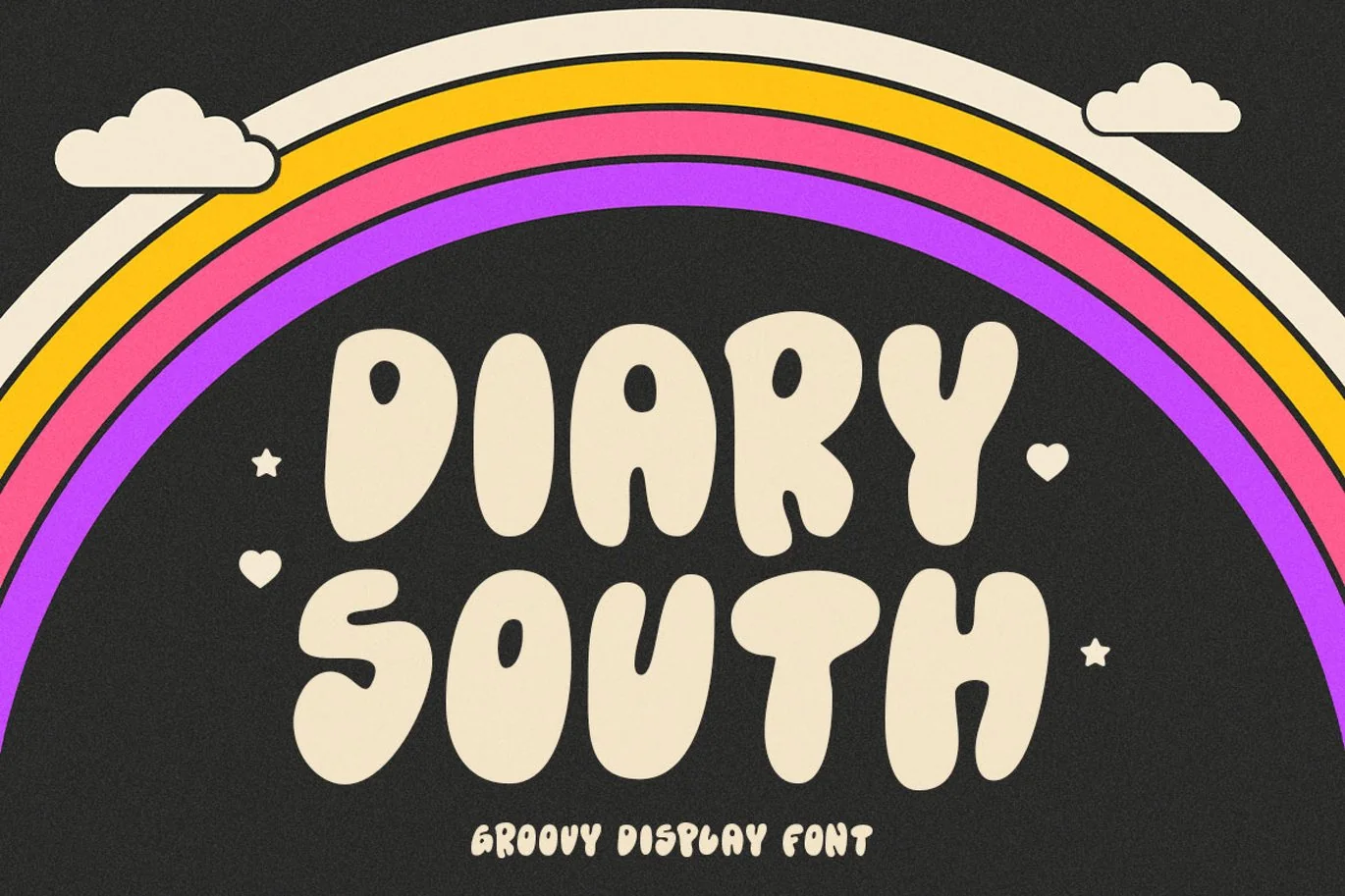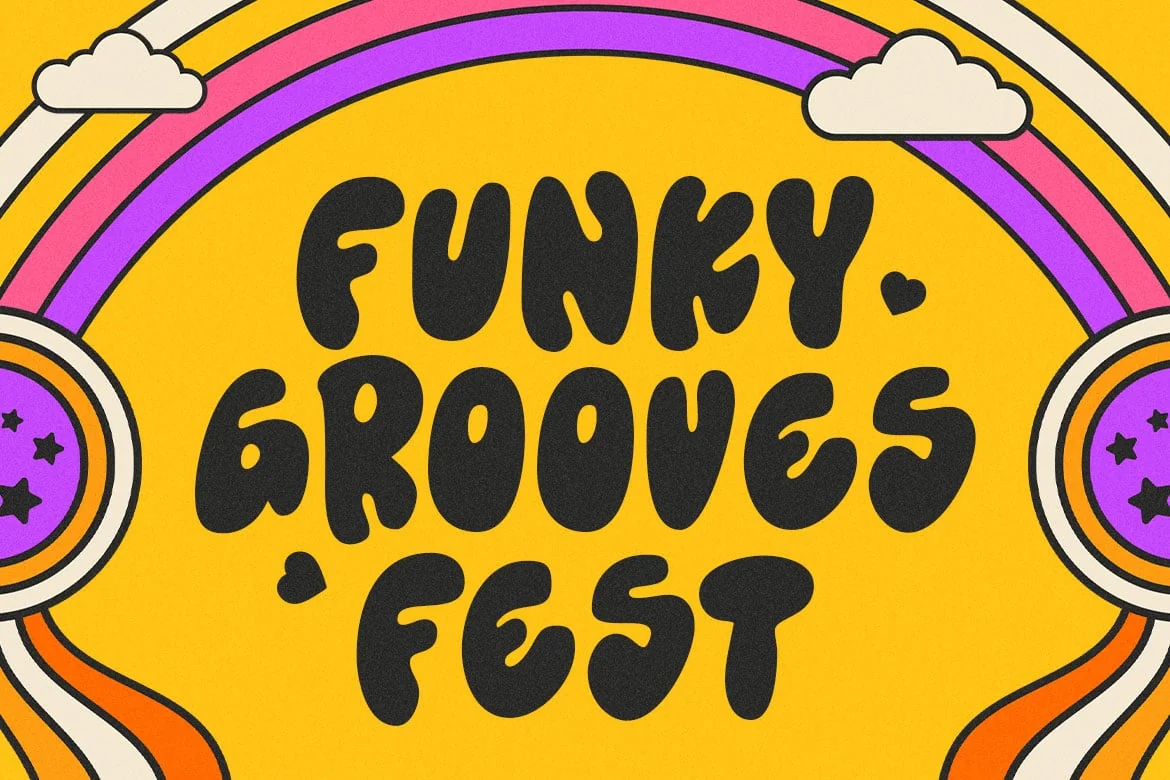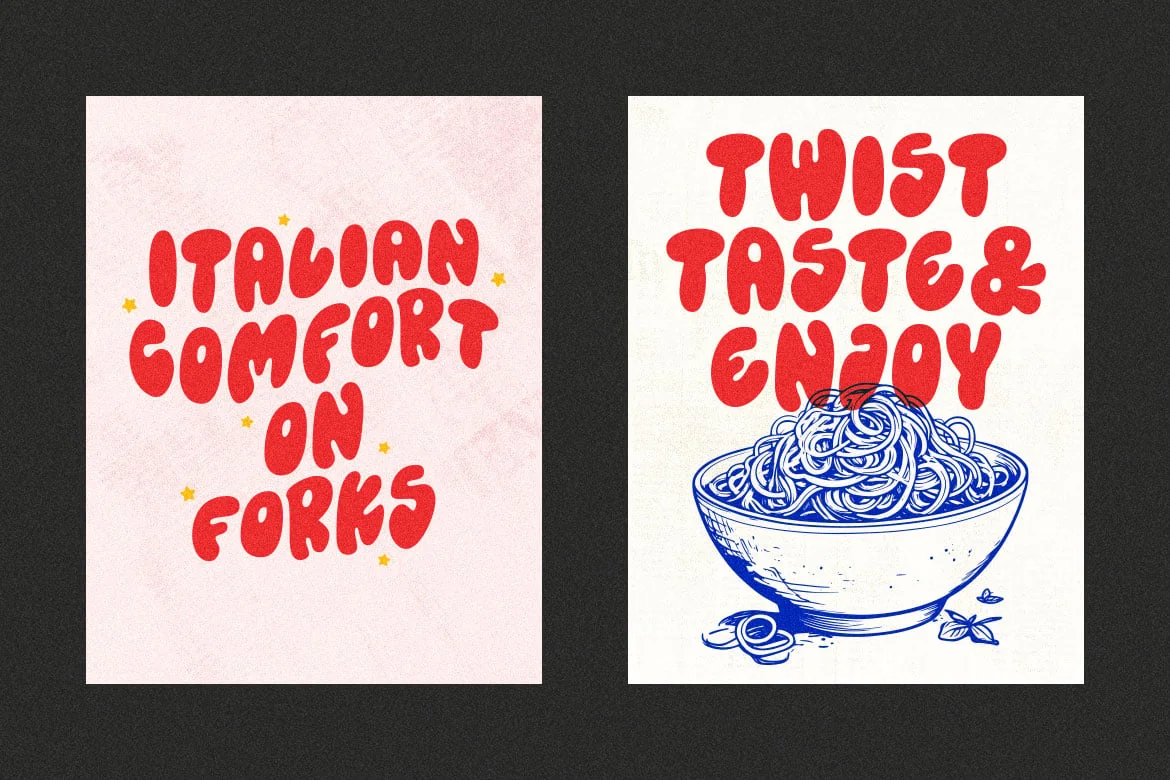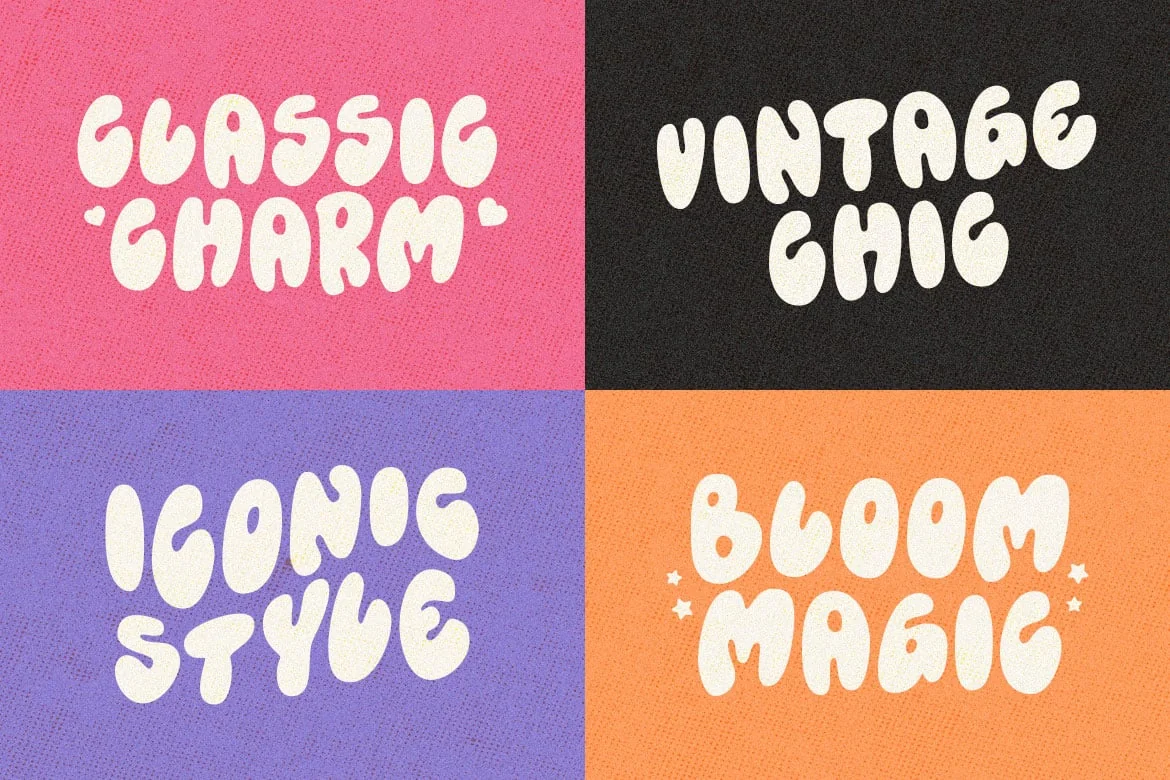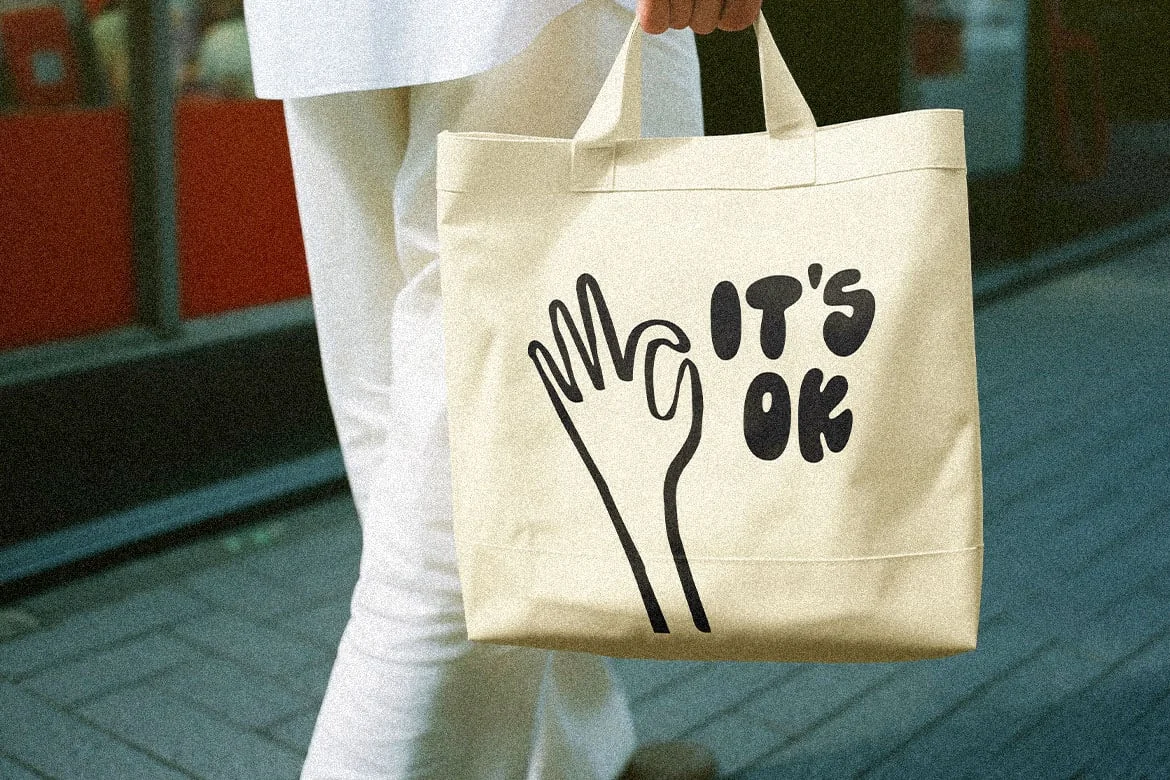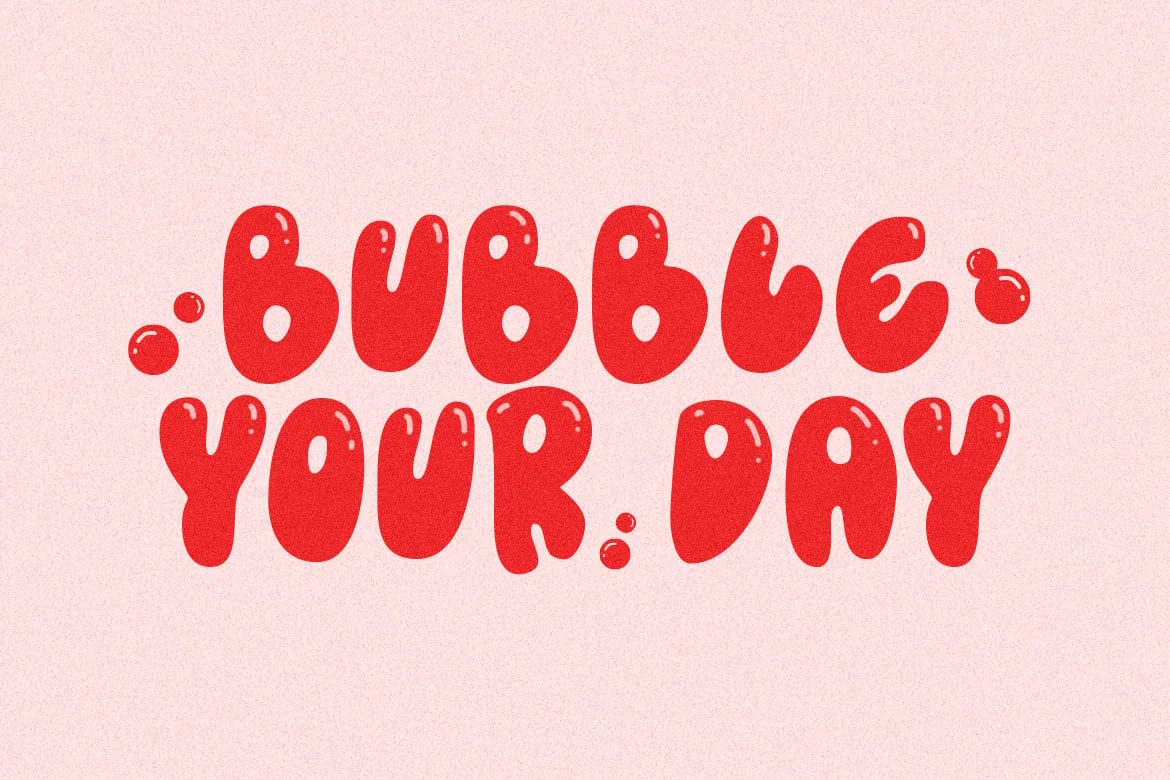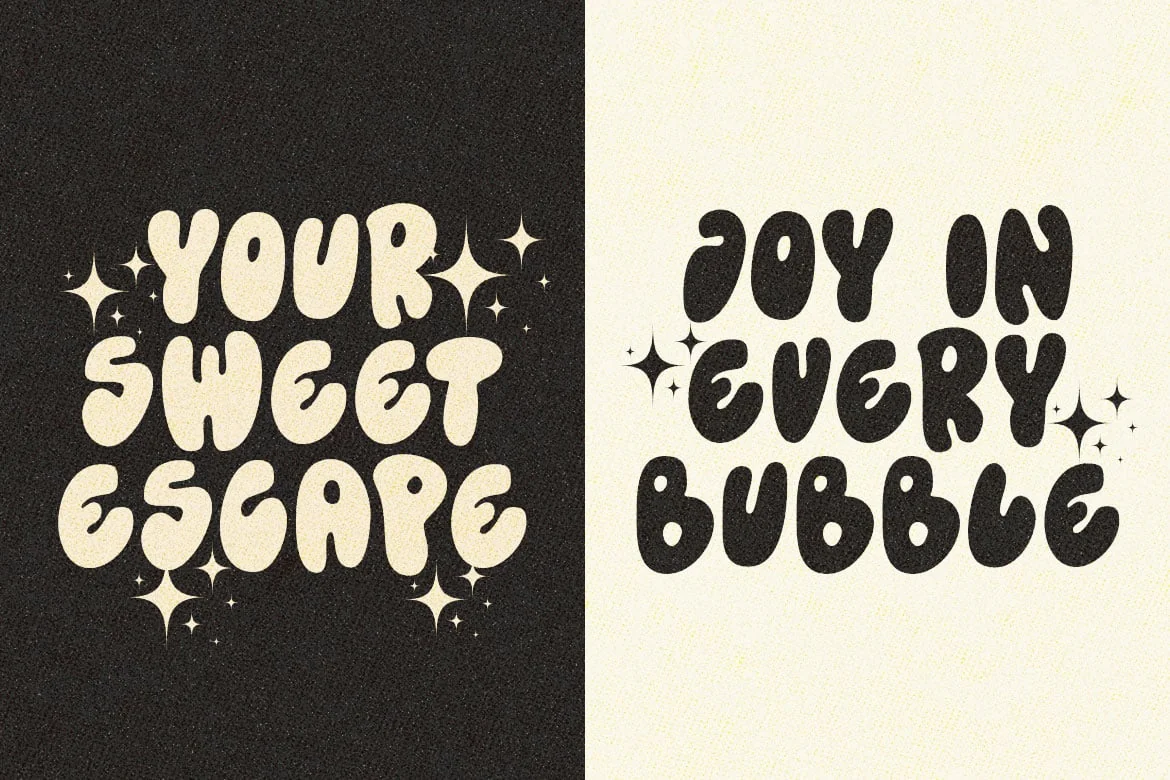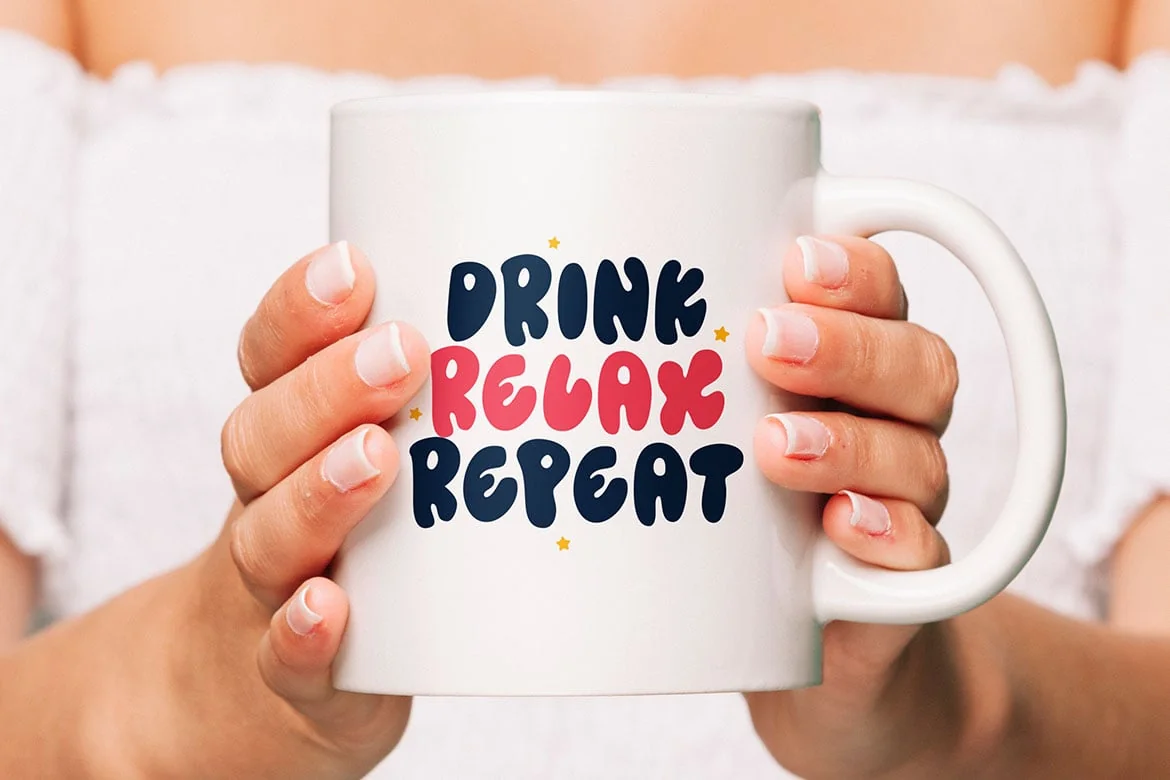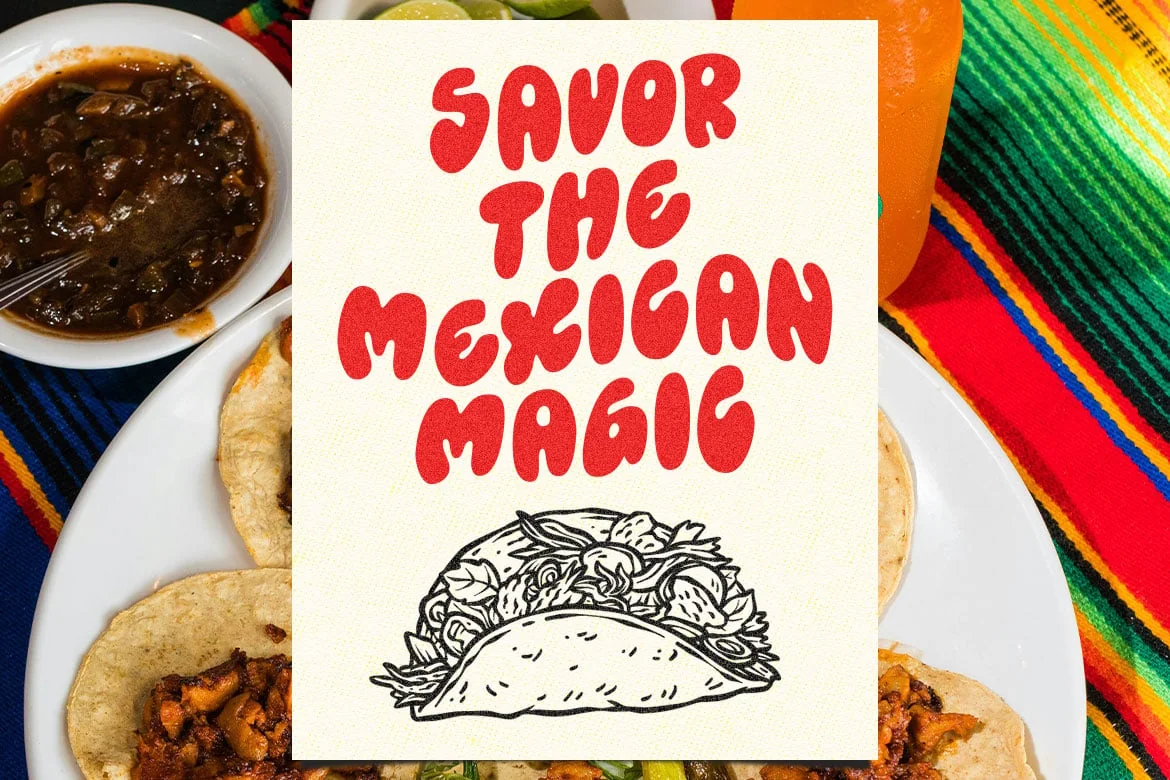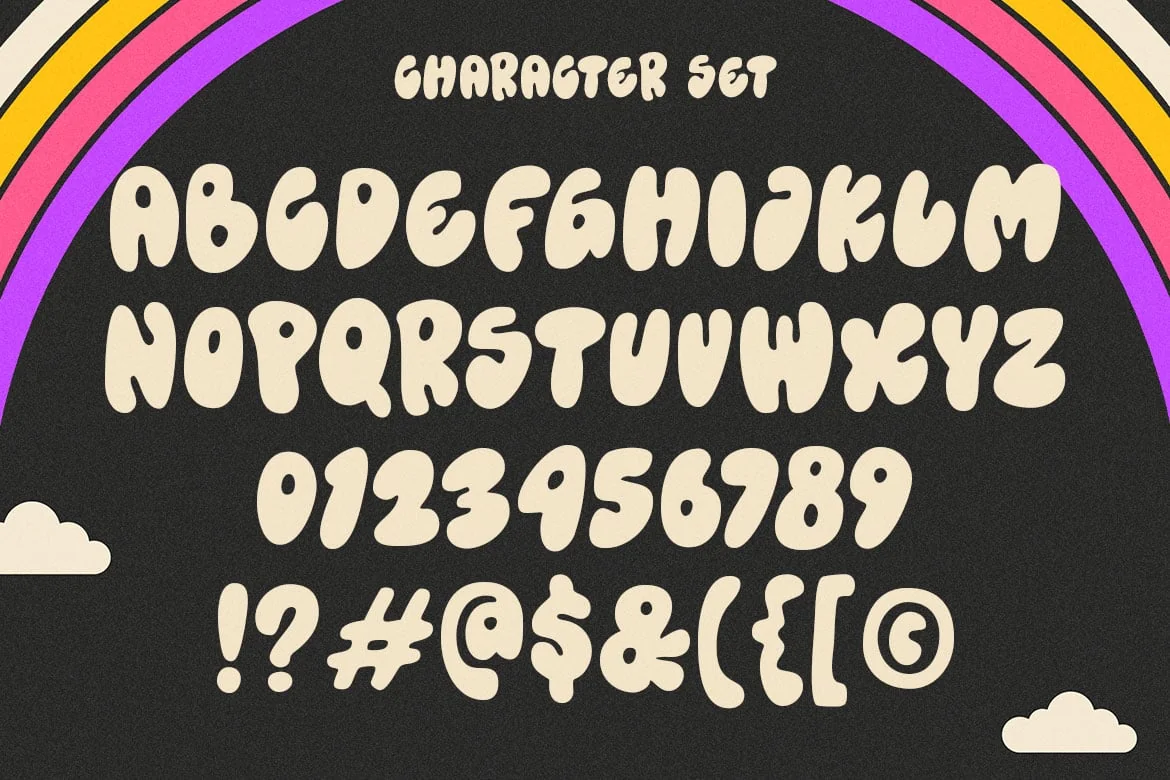
Diary South – Groovy Display Font
Introducing Diary South, a playful and retro-inspired groovy display font. Perfect for adding a touch of nostalgia and fun to your designs, this font features bold, rounded characters that capture the essence of the 70s. Whether you’re designing posters, social media graphics, or packaging, Diary South will make your text pop with its unique and eye-catching style.